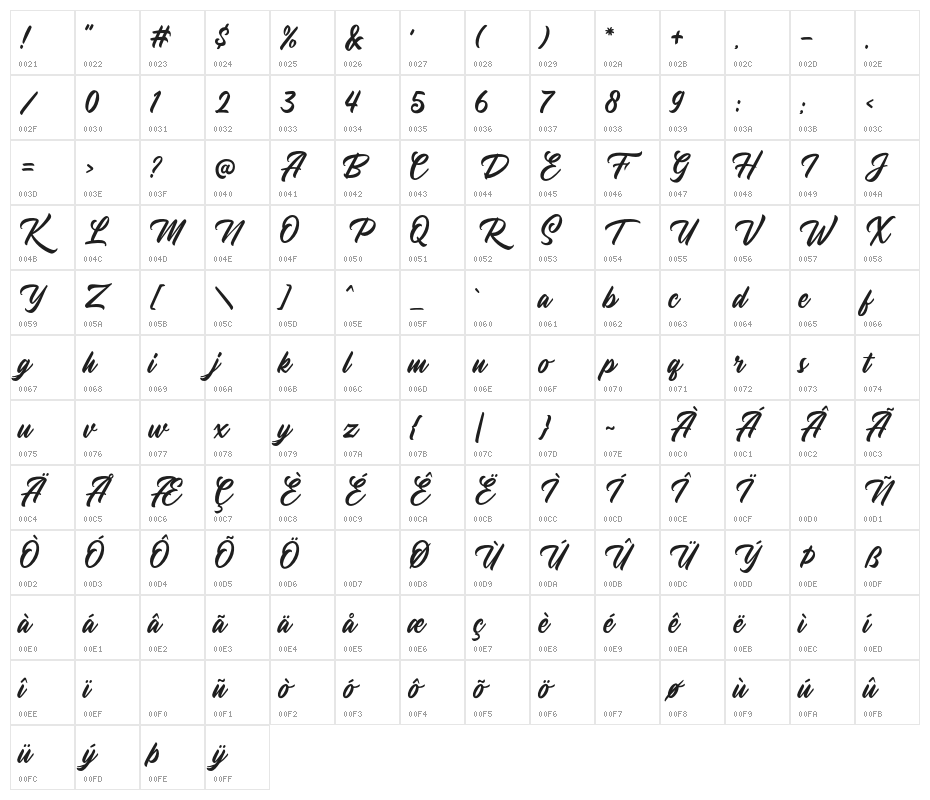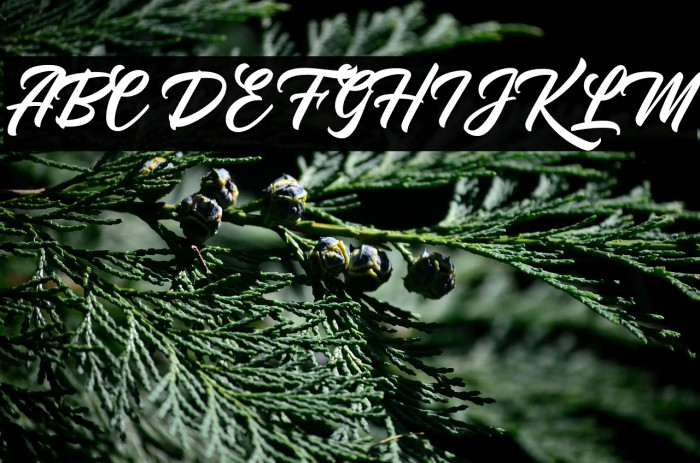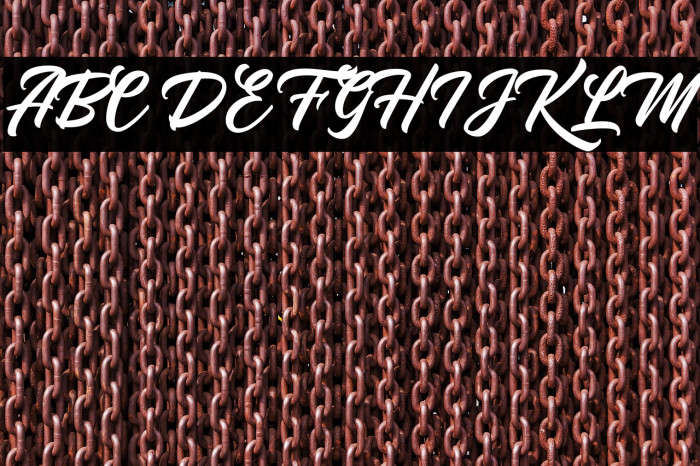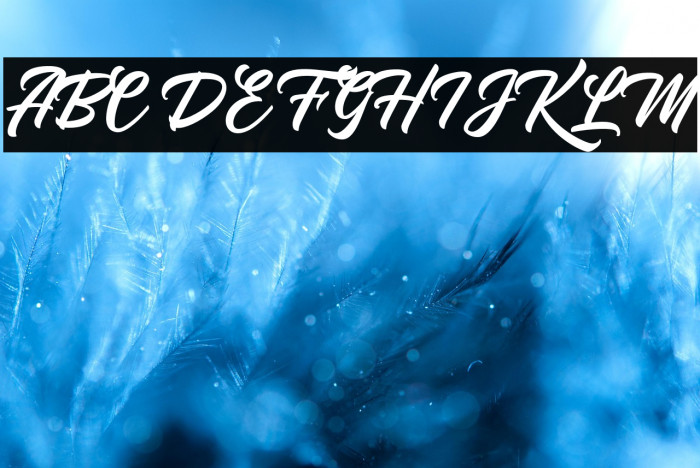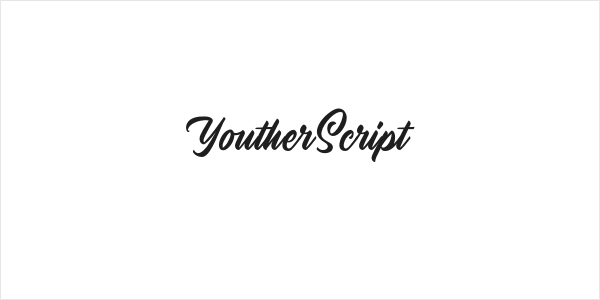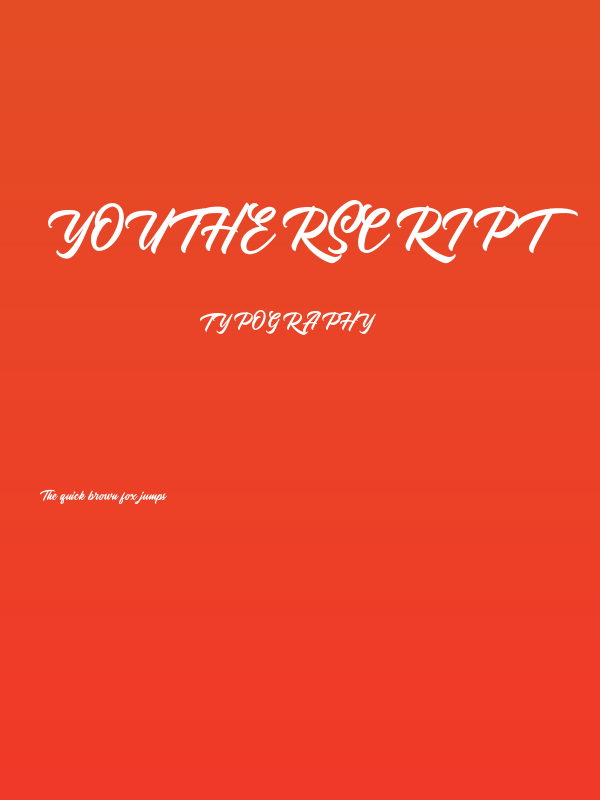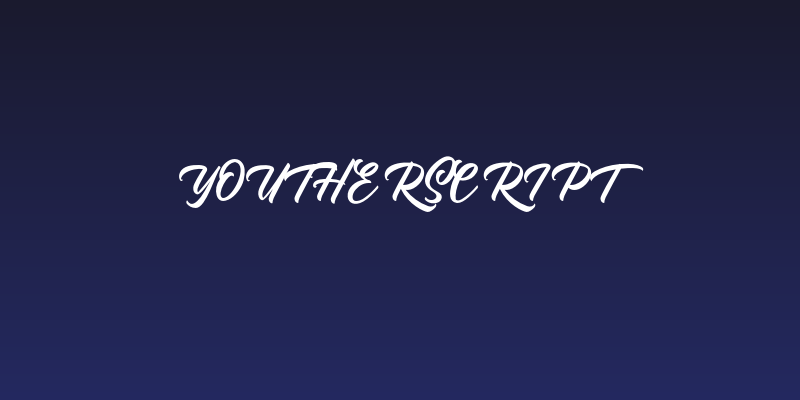
YoutherScript Font
YoutherScript Description
This font exudes a dynamic and energetic style, characterized by its flowing script and cursive elements. The letters are interconnected, creating a sense of movement and fluidity. The strokes are bold and confident, with a slight slant that adds to its expressive nature. The uppercase letters are grand and sweeping, while the lowercase letters maintain a consistent rhythm and balance. The numerals are clear and distinct, matching the overall aesthetic. Special characters are integrated seamlessly, maintaining the font's cohesive look. This font is ideal for projects that require a personal touch, such as invitations, branding, or creative headlines.